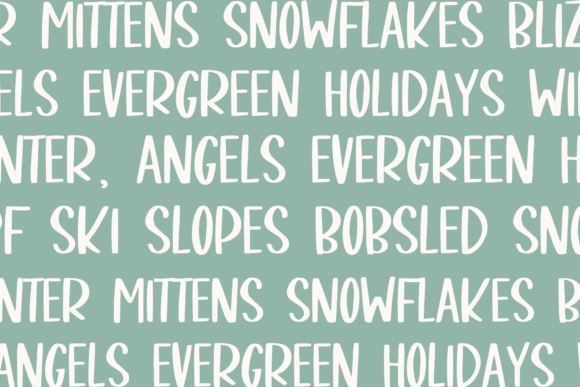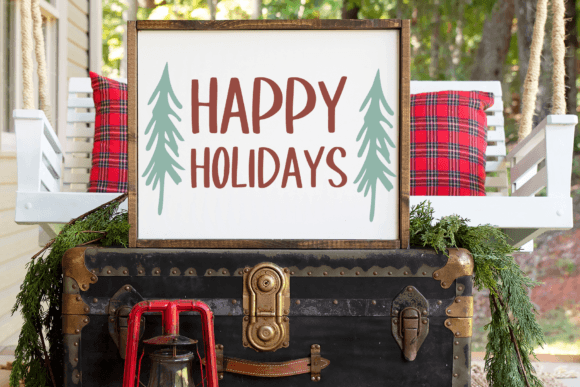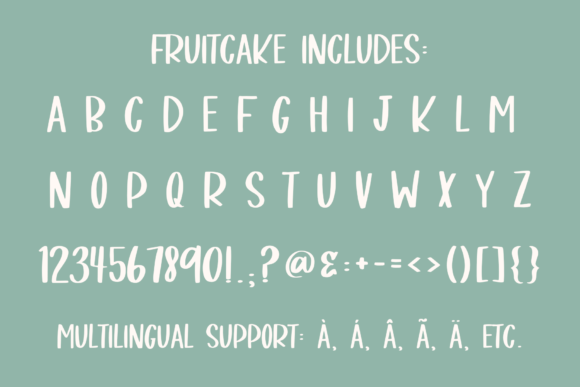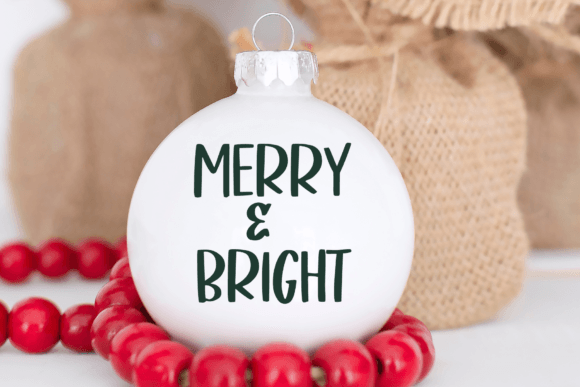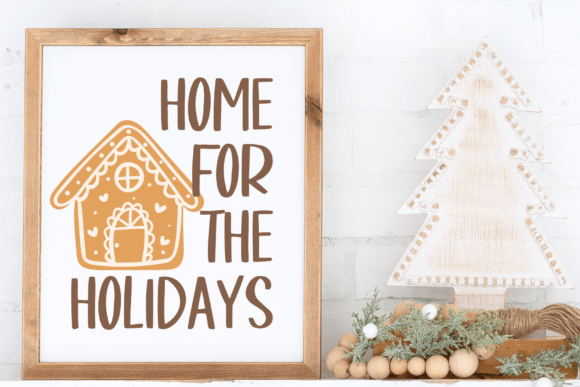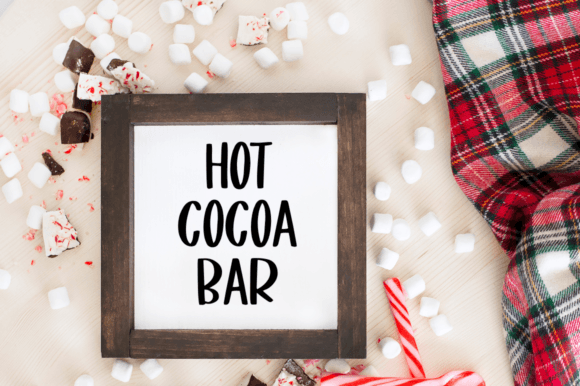
Fruitcake Font: The Perfect Quirky and Fun Handwritten Typeface for Your Creative Projects
Are you tired of using the same old boring fonts for your designs? Look no further than the Fruitcake Font, a quirky and fun handwritten typeface that’s perfect for adding a touch of whimsy to your projects. This cute font is ideal for designers and crafters who want to create fun and eye-catching designs that stand out from the crowd.
What is Fruitcake Font?
Fruitcake Font is a unique and charming handwritten font that’s designed to bring a smile to your face. Its quirky and playful style makes it perfect for a wide range of creative projects, from fun logos and greeting cards to t-shirt designs, stickers, and social media graphics. With its handmade look and feel, Fruitcake Font is sure to add a personal touch to any design.
Features of Fruitcake Font
- Quirky and Fun: Fruitcake Font is a playful and whimsical typeface that’s sure to add a touch of humor and personality to your designs.
- Handwritten Style: This font has a handmade look and feel that’s perfect for crafters and designers who want to create unique and personalized designs.
- Versatile: Fruitcake Font is suitable for a wide range of creative projects, from logos and greeting cards to t-shirt designs and social media graphics.
- Easy to Read: Despite its quirky style, Fruitcake Font is easy to read and understand, making it perfect for designs that require a clear and concise message.
Uses of Fruitcake Font
Fruitcake Font is a versatile typeface that can be used for a wide range of creative projects, including:
- Fun Logos: Create eye-catching logos for your business or brand that stand out from the crowd.
- Greeting Cards: Design personalized greeting cards for special occasions, such as birthdays, holidays, and weddings.
- T-Shirt Designs: Create fun and quirky t-shirt designs that are perfect for festivals, parties, and other events.
- Stickers: Design cute and playful stickers that can be used for a wide range of purposes, from decorating laptops and water bottles to creating fun party favors.
- Social Media Graphics: Create engaging social media graphics that showcase your brand’s personality and style.
Why Choose Fruitcake Font?
There are many reasons why Fruitcake Font is the perfect choice for your creative projects. Here are just a few:
- Unique Style: Fruitcake Font has a unique and quirky style that’s sure to set your designs apart from the crowd.
- High-Quality: Fruitcake Font is a high-quality typeface that’s designed to produce clear and crisp results, even at small sizes.
In conclusion, Fruitcake Font is a quirky and fun handwritten typeface that’s perfect for designers and crafters who want to add a touch of whimsy to their creative projects. With its unique style, versatility, and ease of use, this font is sure to become a favorite in your design arsenal. So why wait? Download Fruitcake Font today and start creating fun and eye-catching designs that stand out from the crowd!